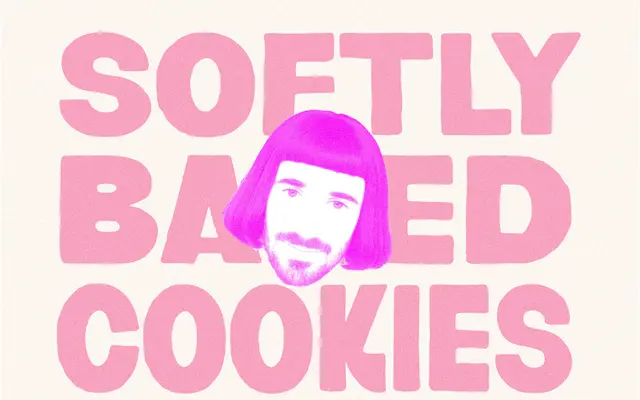
Crumb specimen from Taylor Penton
A single-weight display face with soft, slightly wonky letterforms drawn from late-1990s graphic nostalgia.
Built around deliberate imperfection, its rounded and gently irregular forms give it a handmade warmth suited to branding, packaging and editorial work with a casual or nostalgic tone. The 220-glyph set covers extensive Western European Latin including Icelandic and Welsh. Available as a single commercial licence with no seat or traffic restrictions for teams under 50 employees.
A display typeface with deliberate softness and imperfection evoking late-1990s graphic design sensibilities; the irregular, casual character places it firmly in the display/novelty category rather than any structured text classification.